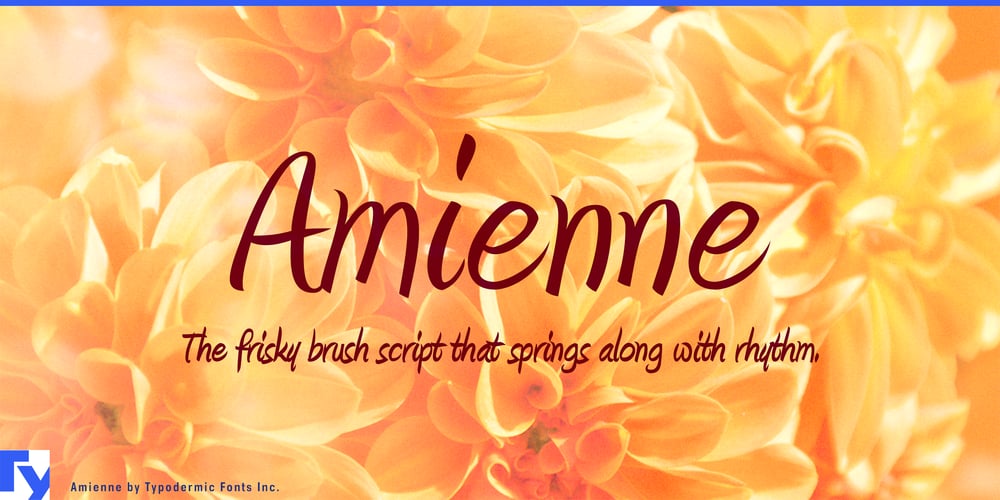
Amienne Font Family was designed by Ray Larabie and published by Typodermic. Amienne contains 2 styles and family package options. Discover Amienne, a typeface that breathes life into your designs with its effortless charm and vivacity. This expertly crafted brush script dances across the page, infusing your projects with a delightful fusion of spontaneity and grace.At the heart of Amienne’s allure lies its sophisticated ligature system. As your words flow, certain letter combinations seamlessly transform into bespoke glyphs, mimicking the natural rhythm of handwritten brushstrokes. The result? Text that exudes an organic, authentic feel—perfect for elevating invitations, packaging, and branding materials from ordinary to extraordinary.Amienne offers two distinct personalities within its font family: the lighthearted Regular and the commanding Bold. This versatility empowers designers to fine-tune their typographic voice, whether crafting attention-grabbing headlines or weaving delicate body text. The typeface’s adaptability shines across a spectrum of applications, from editorial layouts to digital media.For the discerning designer seeking to infuse their work with a touch of refined whimsy, Amienne stands ready to make its mark. Its unique blend of informal elegance and typographic sophistication offers a refreshing alternative to conventional scripts. Why let your designs whisper when they could sing with Amienne’s vibrant voice?